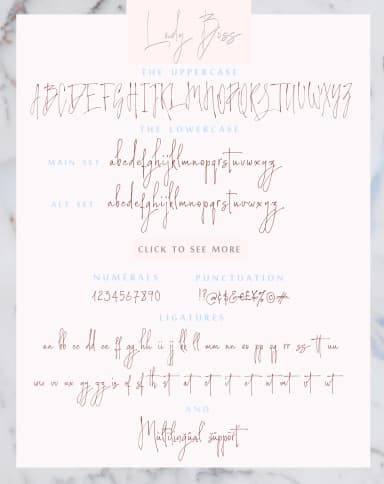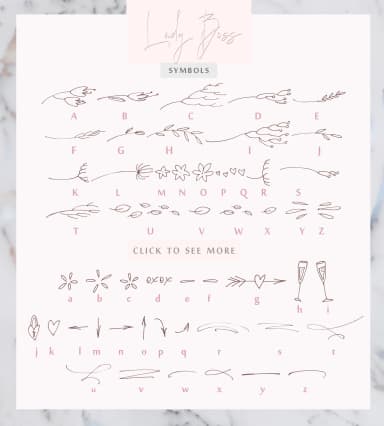
Lady Boss Font by Iradvilyuk is a modern handwritten script distinguished by elegant, flowing letterforms that carry contemporary flair without sacrificing readability. The design thoughtfully balances feminine sensibility with versatile functionality, proving that handwritten typefaces can work across diverse creative applications when crafted with intention and careful refinement. This typeface excels in feminine-focused branding contexts, luxury skincare packaging, jewelry business logos, and upscale fashion lookbooks all benefit from its warm, approachable sophistication. It performs beautifully for occasion design work such as wedding invitation suites, engagement announcements, and anniversary cards that demand personal, heartfelt typography rather than cold formality. The script's flowing character also translates well to event signage, lifestyle blog headers, and curated social media graphics where authenticity and elegance matter equally. Beyond standard letterforms, the font includes a thoughtful symbol set, expanding creative possibilities and allowing designers to layer decorative elements that enhance rather than distract from the primary message. Whether you're developing boutique retail branding, hand-lettered craft signage, or building a cohesive brand identity rooted in contemporary design language, Lady Boss Font adapts fluidly across mediums and creative contexts. Discover this versatile script through Creative Fabrica and bring a refined, personal touch to your next significant design project.
- Elegant, Flowing, Lady Boss Script
Lady Boss Font is a script font that shines as a display or heading face. Pair it with a clean sans-serif or serif font for body text β the contrast creates a clear hierarchy while the two styles stay balanced and easy to read.